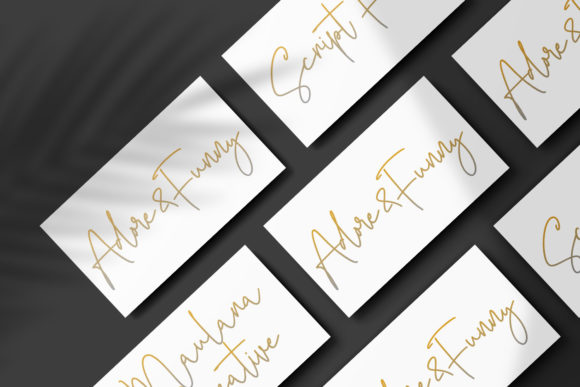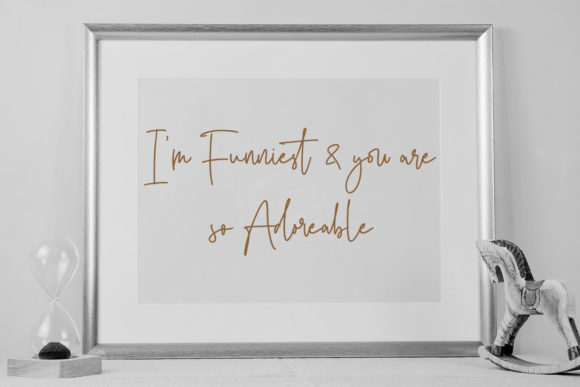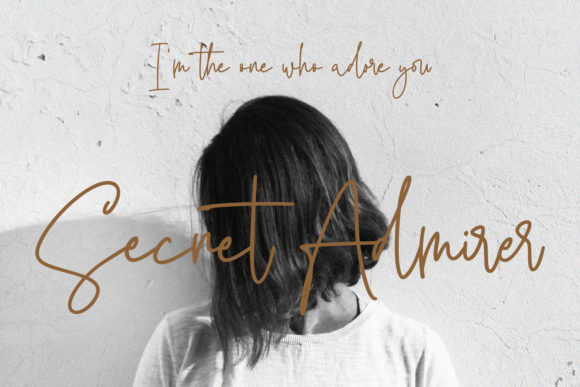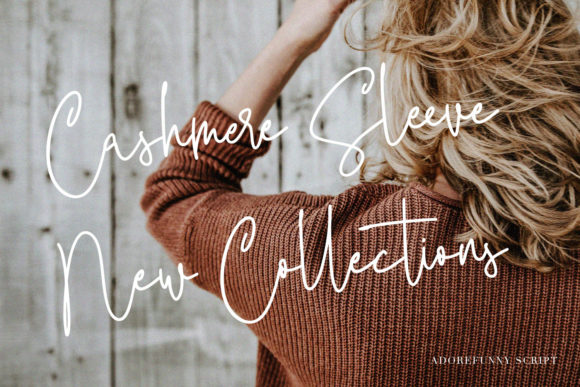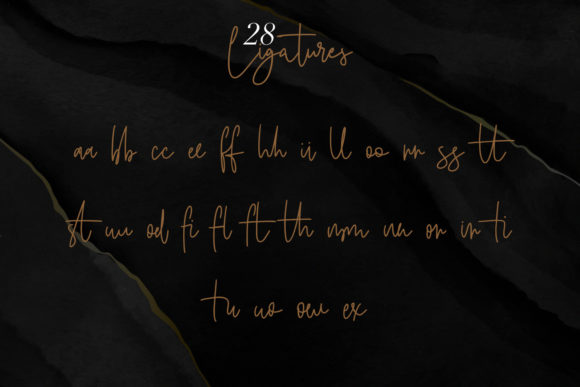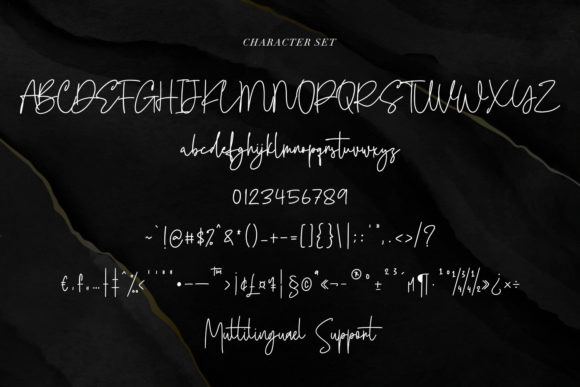
Introducing Adore&Funny Font: Elevate Your Designs with a Modern Handwritten Style
In the world of typography, a font can make or break a design. For designers and crafters looking for a modern and elegant touch, the Adore&Funny font is an excellent choice. This stunning handwritten font boasts a neat and beautiful arrangement of letters, making it perfect for both formal and non-formal designs.
What Makes Adore&Funny Font Stand Out?
Adore&Funny is a modern handwritten font that exudes elegance and sophistication. Its unique characteristics include:
- Neat and Beautiful Arrangement: The font features a carefully crafted arrangement of letters, ensuring that each character flows seamlessly into the next.
- Modern and Elegant: The Adore&Funny font has a distinctly modern feel, making it perfect for designs that require a touch of sophistication.
- Versatile: This font is suitable for a wide range of designs, from formal invitations and business cards to non-formal projects like social media graphics and crafts.
Whether you’re a professional designer or a crafty DIY enthusiast, the Adore&Funny font is an excellent addition to your toolkit. Here are some ways you can use this font to elevate your designs:
- Wedding Invitations: Create stunning wedding invitations, save-the-date cards, and other wedding stationery with the Adore&Funny font.
- Branding and Packaging: Use the font to create eye-catching logos, product labels, and packaging designs that stand out.
- Social Media Graphics: Add a touch of elegance to your social media graphics, blog posts, and website headers with the Adore&Funny font.
- Crafts and DIY Projects: Use the font to create personalized gifts, such as customized mugs, t-shirts, and iron-on designs.
Why Choose Adore&Funny Font?
With so many fonts available, why choose Adore&Funny? Here are some compelling reasons:
- Unique and Exclusive: The Adore&Funny font is a unique and exclusive design that will set your projects apart from the rest.
- Easily Readable: The font is designed to be easily readable, making it perfect for body text and headings.
- Scalable: The Adore&Funny font is highly scalable, ensuring that it looks great in various sizes and resolutions.
Tips for Using Adore&Funny Font
To get the most out of the Adore&Funny font, here are some tips to keep in mind:
- Pair with Other Fonts: Experiment with pairing the Adore&Funny font with other fonts to create a unique and visually appealing combination.
- Adjust Font Size and Style: Don’t be afraid to adjust the font size and style to suit your design needs.
- Use in Combination with Images: Combine the Adore&Funny font with high-quality images to create stunning visual designs.
In conclusion, the Adore&Funny font is a modern handwritten font that is sure to elevate your designs. With its neat and beautiful arrangement of letters, this typeface is perfect for both formal and non-formal designs. Whether you’re a designer or a crafter, the Adore&Funny font is an excellent choice for adding a touch of elegance and sophistication to your projects.